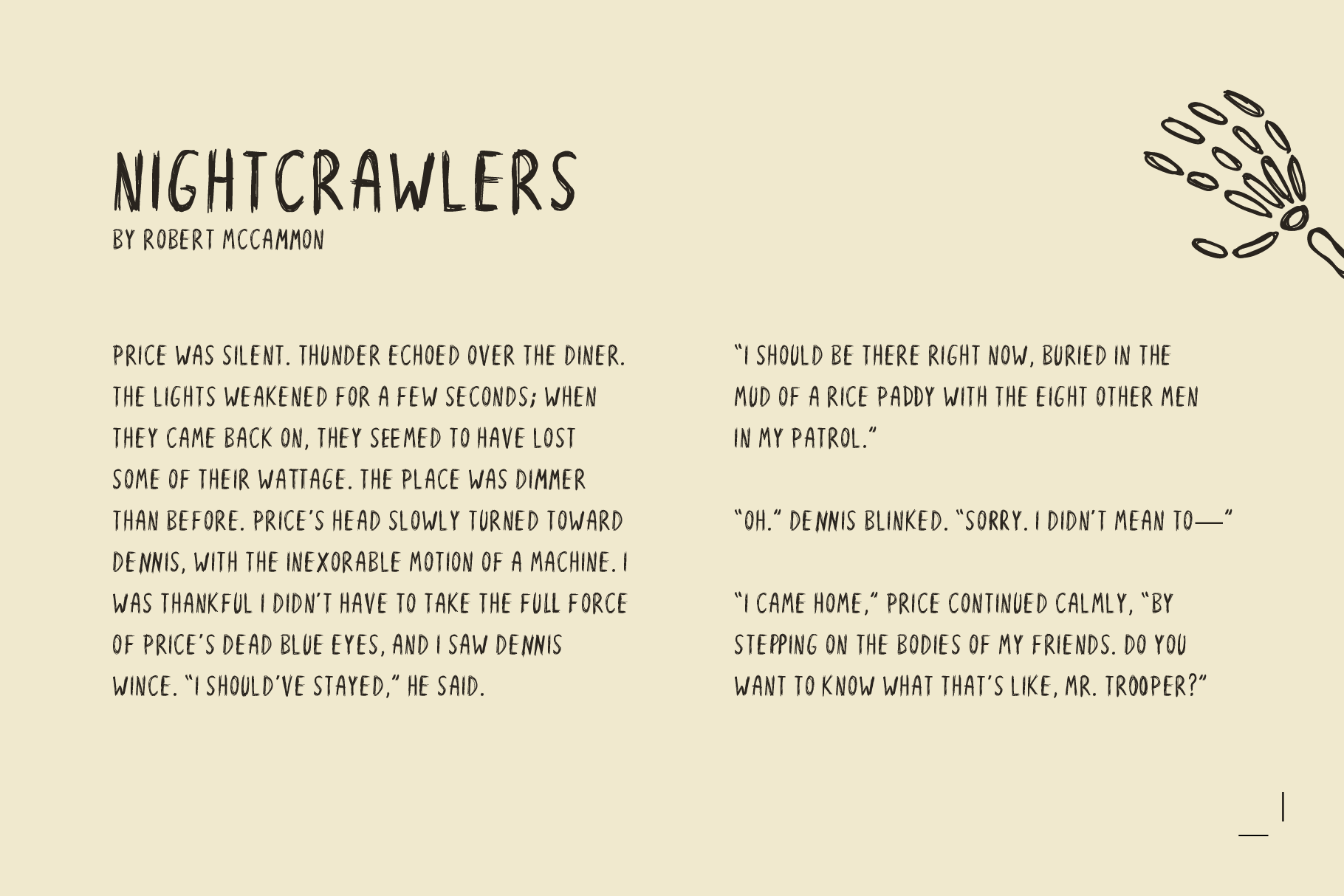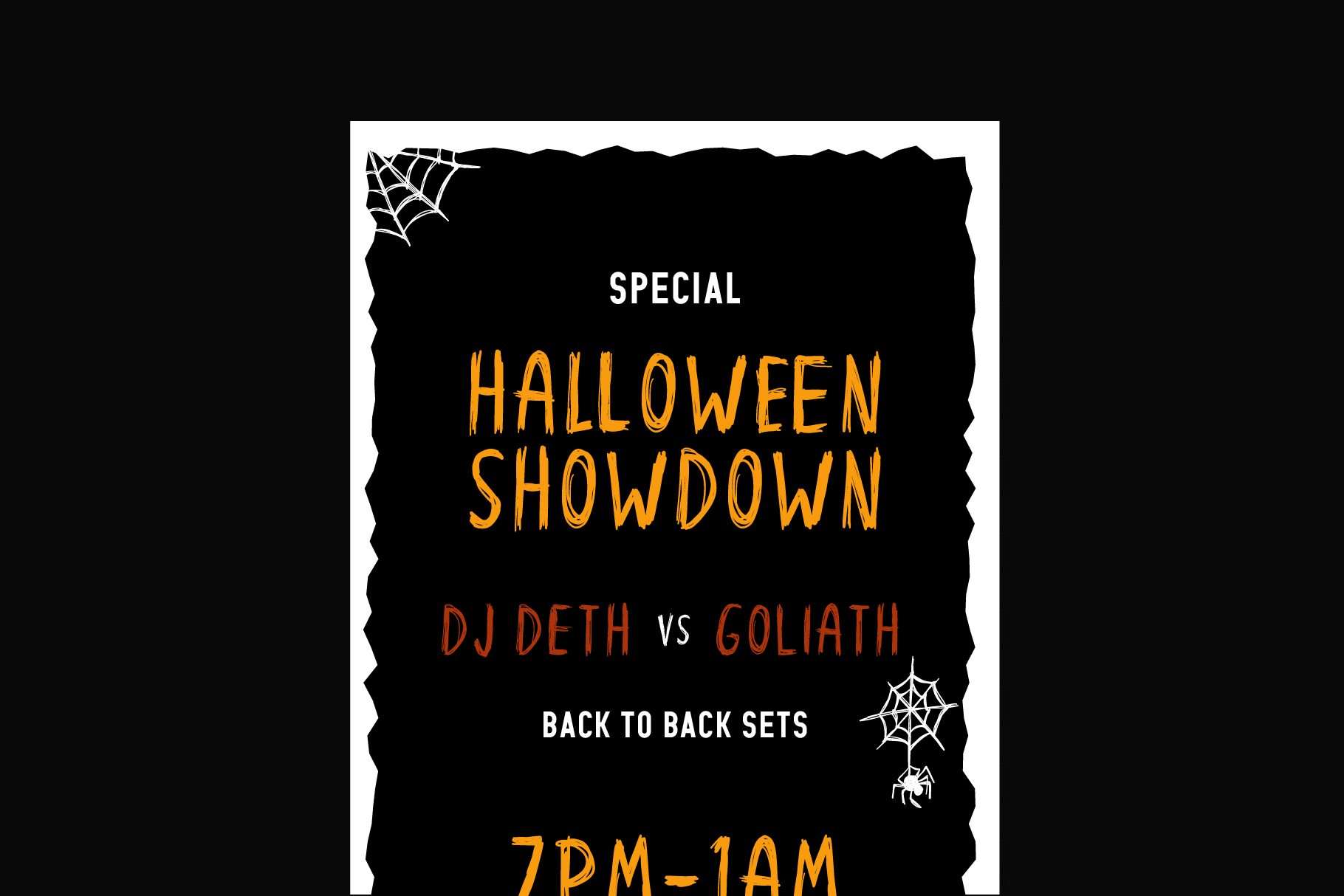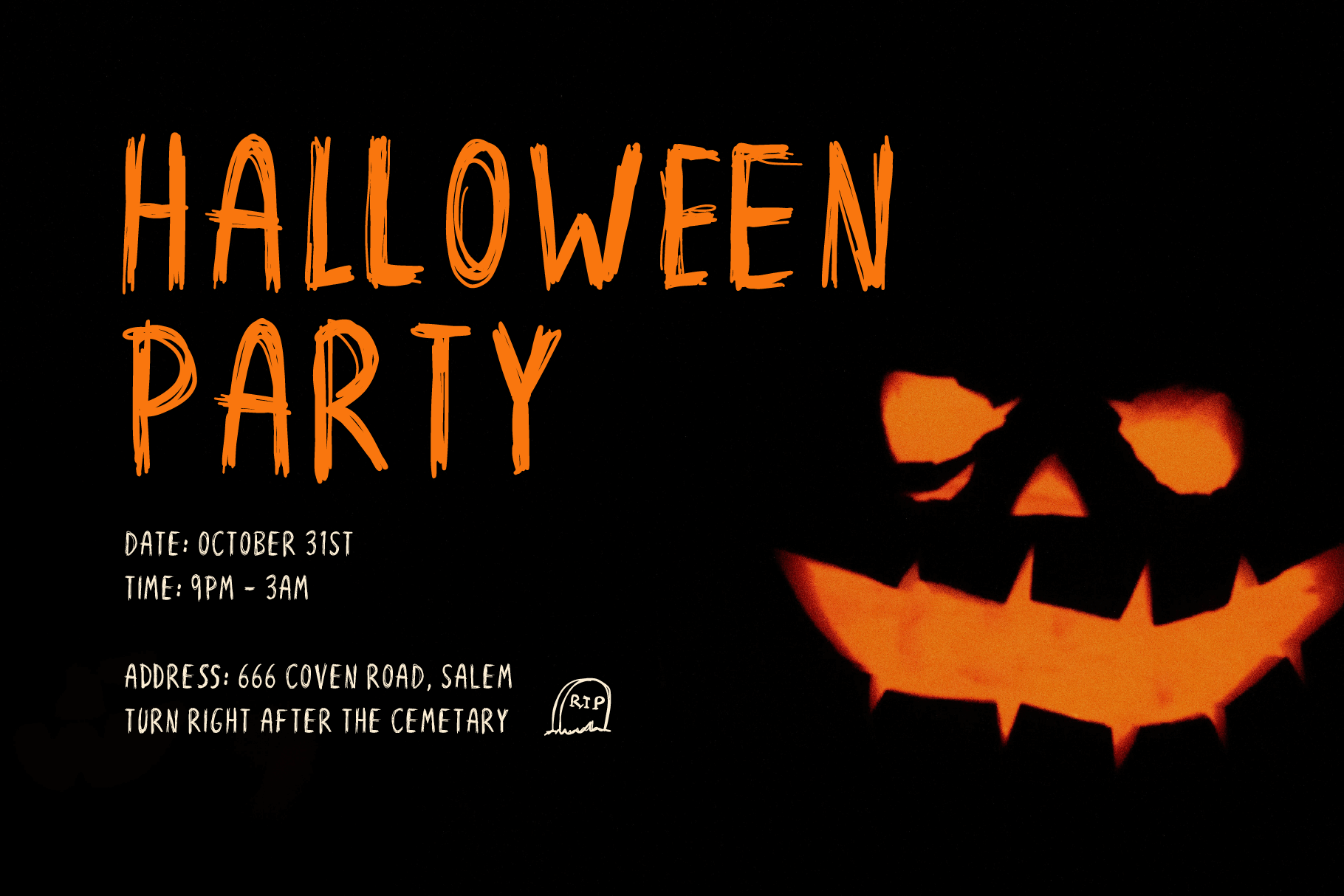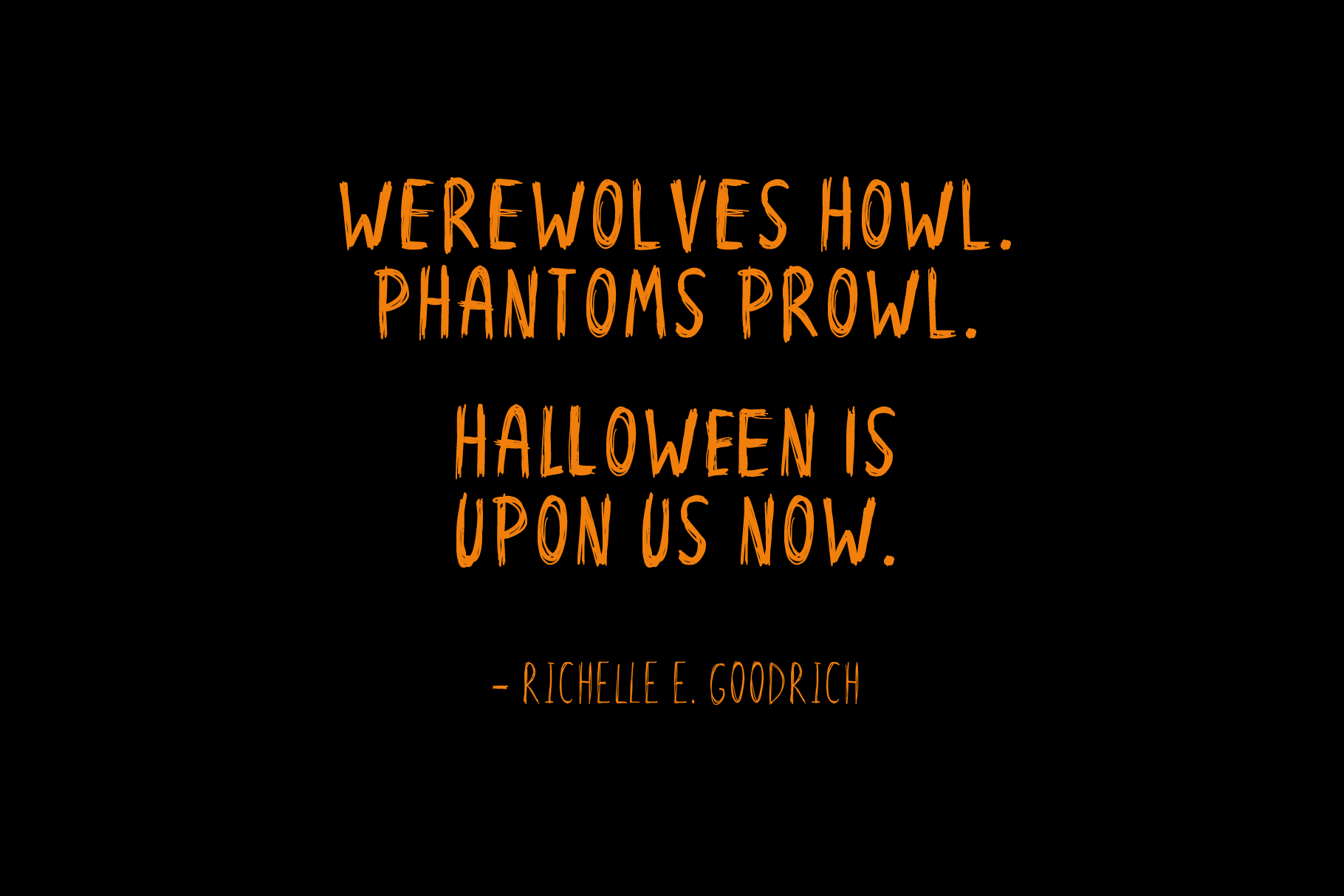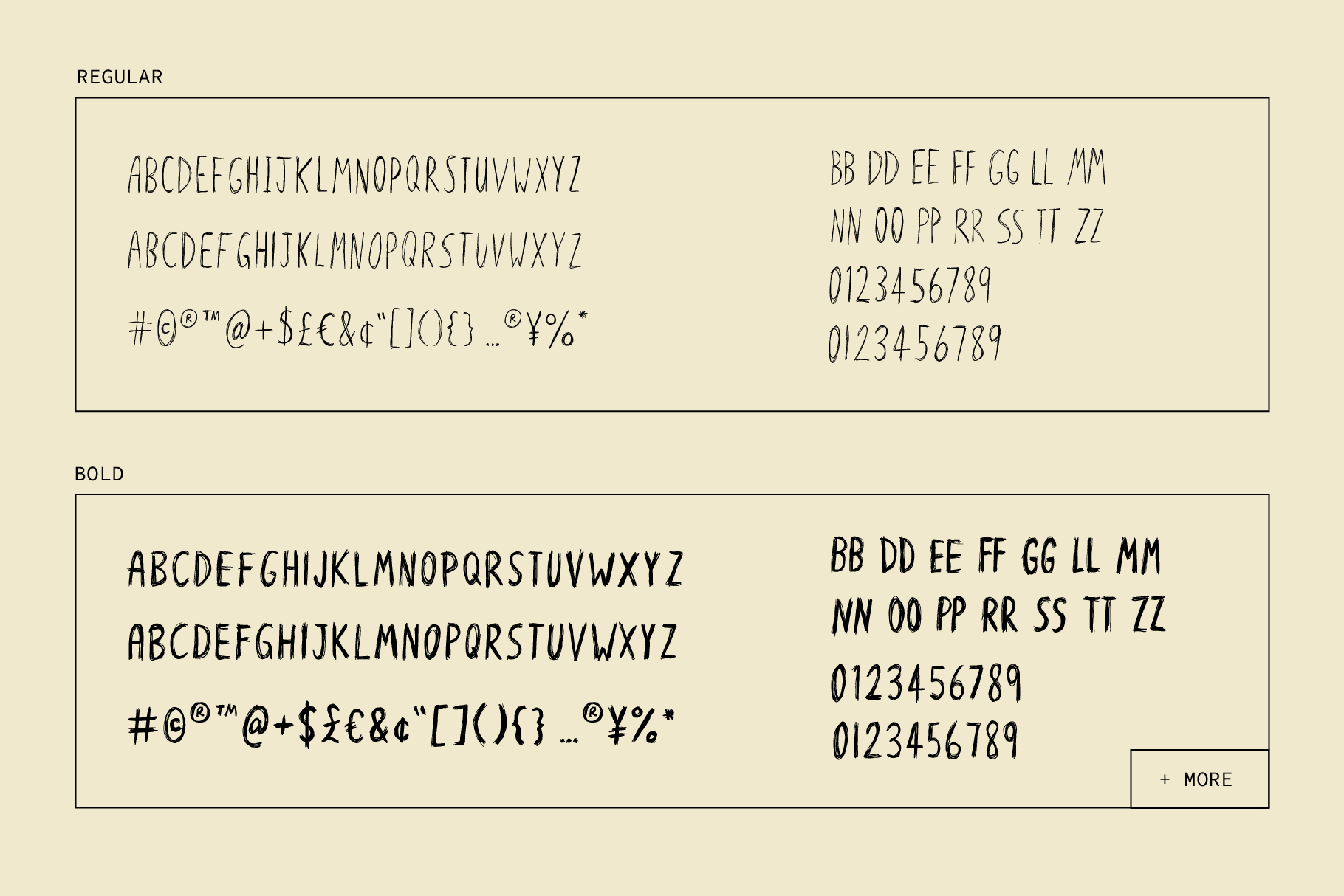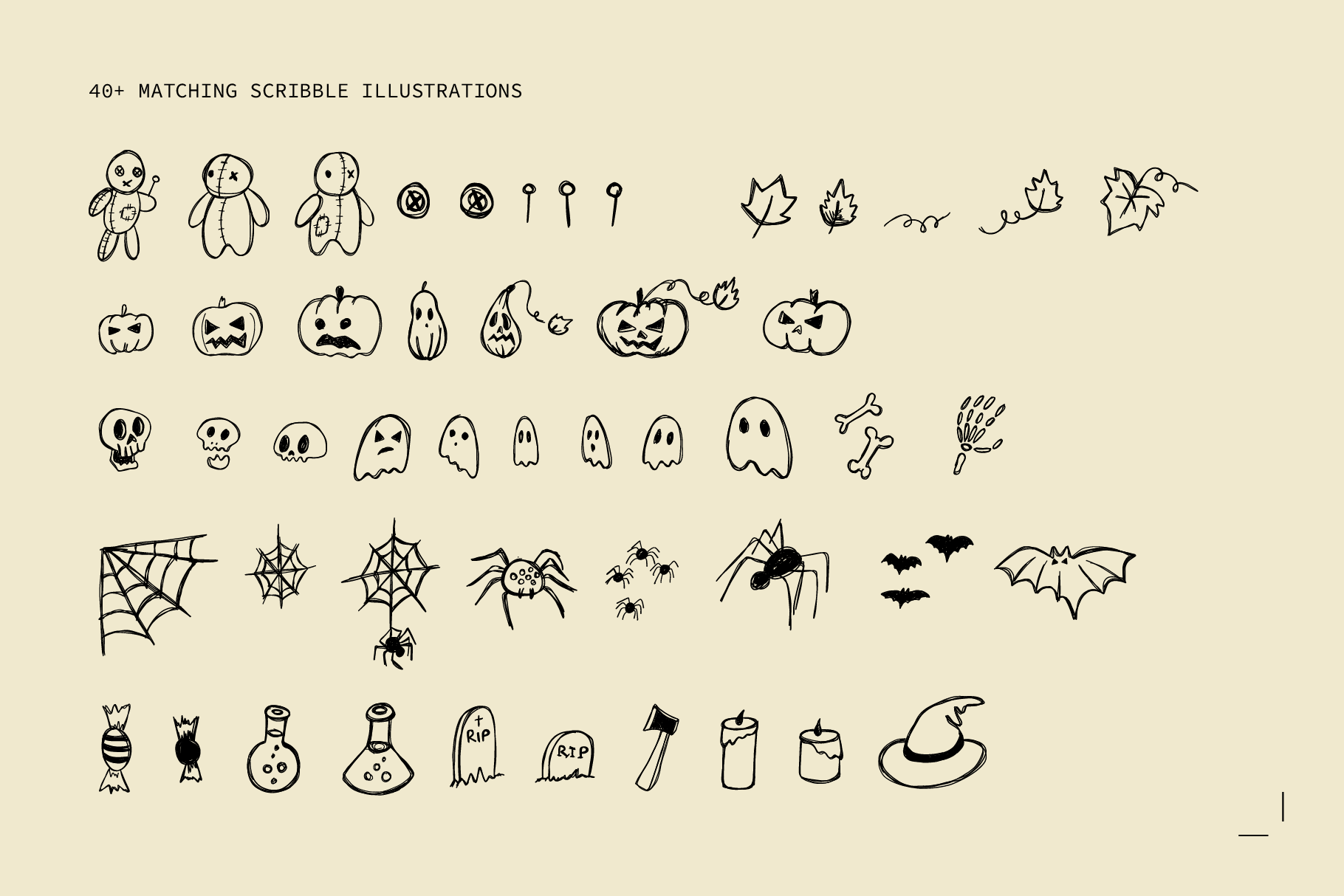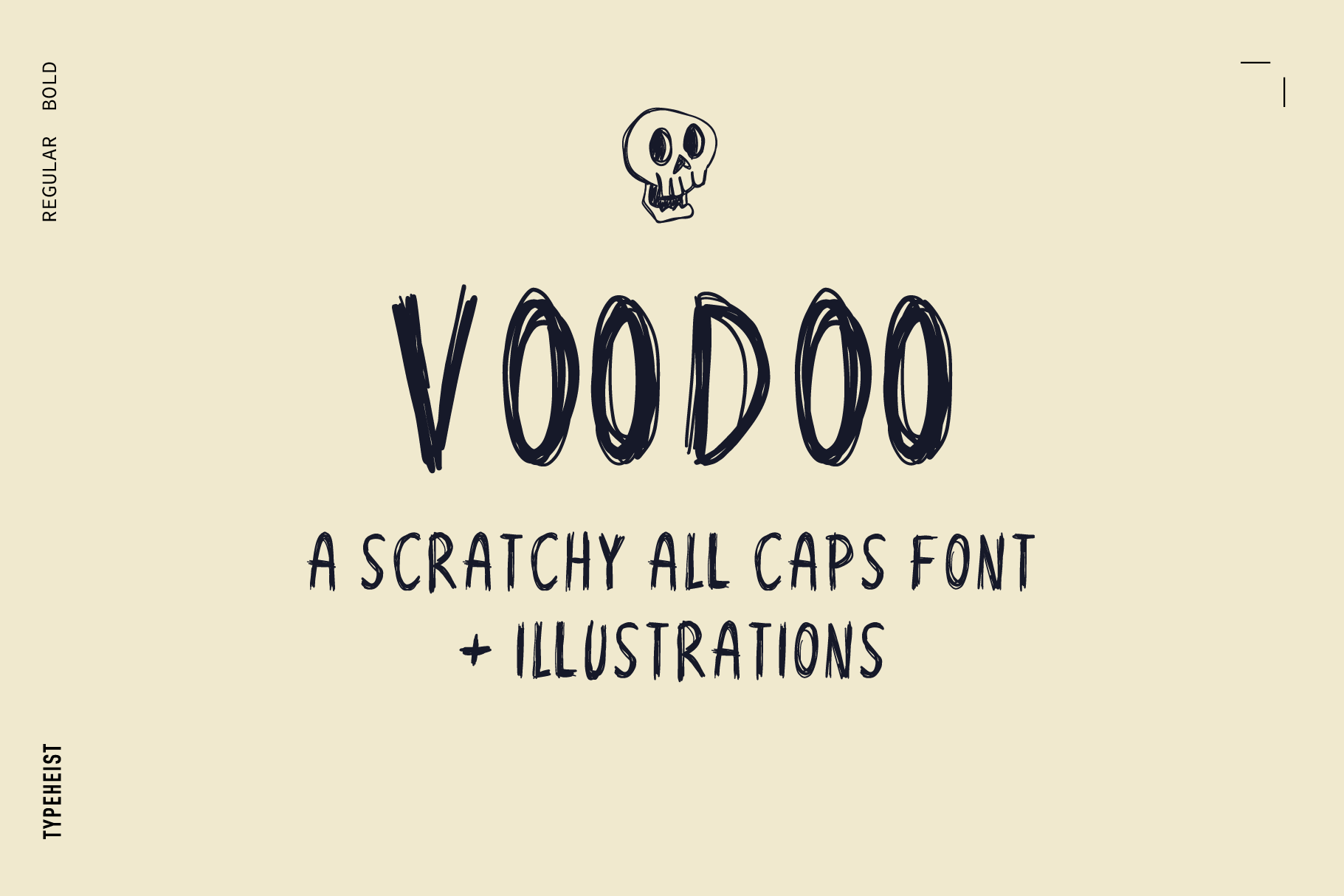
Voodoo
Voodoo is a scratchy, scribbled and all caps Halloween font.
This spooky handwriting font has regular and bold font weights and includes 40+ matching scribble illustrations (voodoo dolls spiders, ghosts, skulls and more).
If you’ve got a Halloween event approaching or something spooky lined up, Voodoo is the messy handwriting font for you.